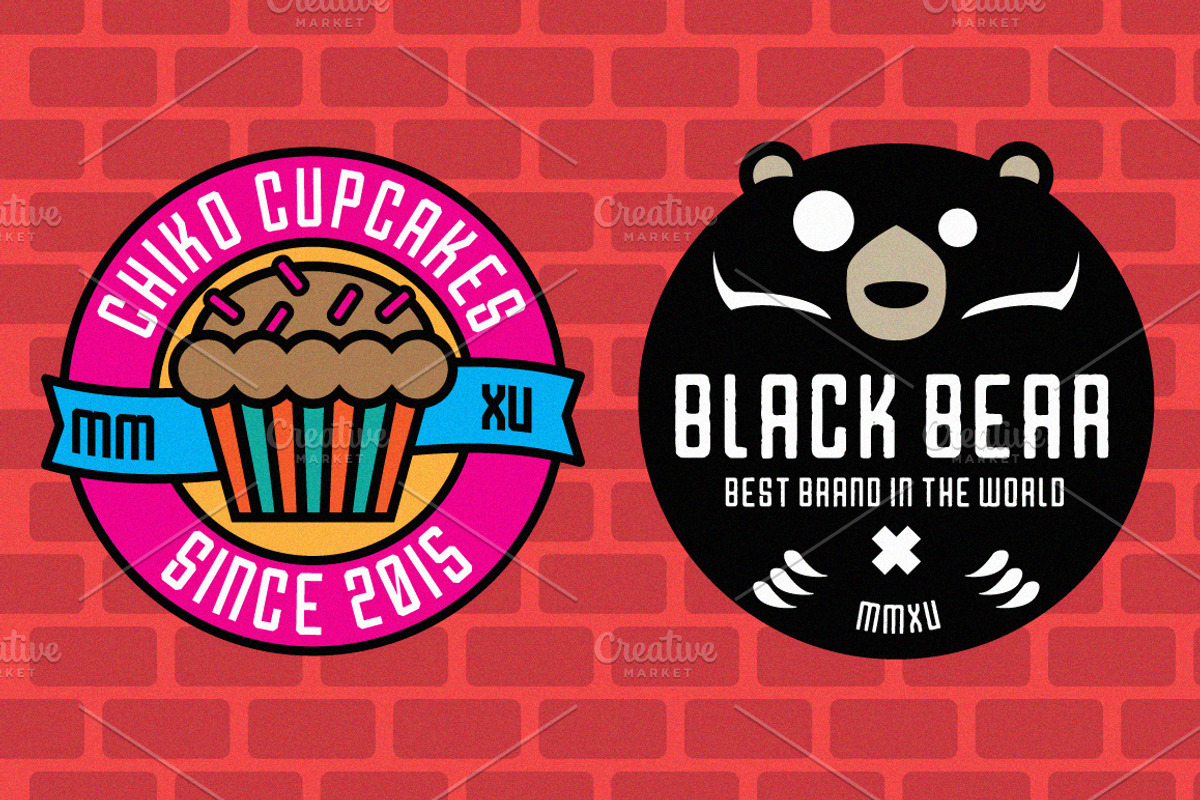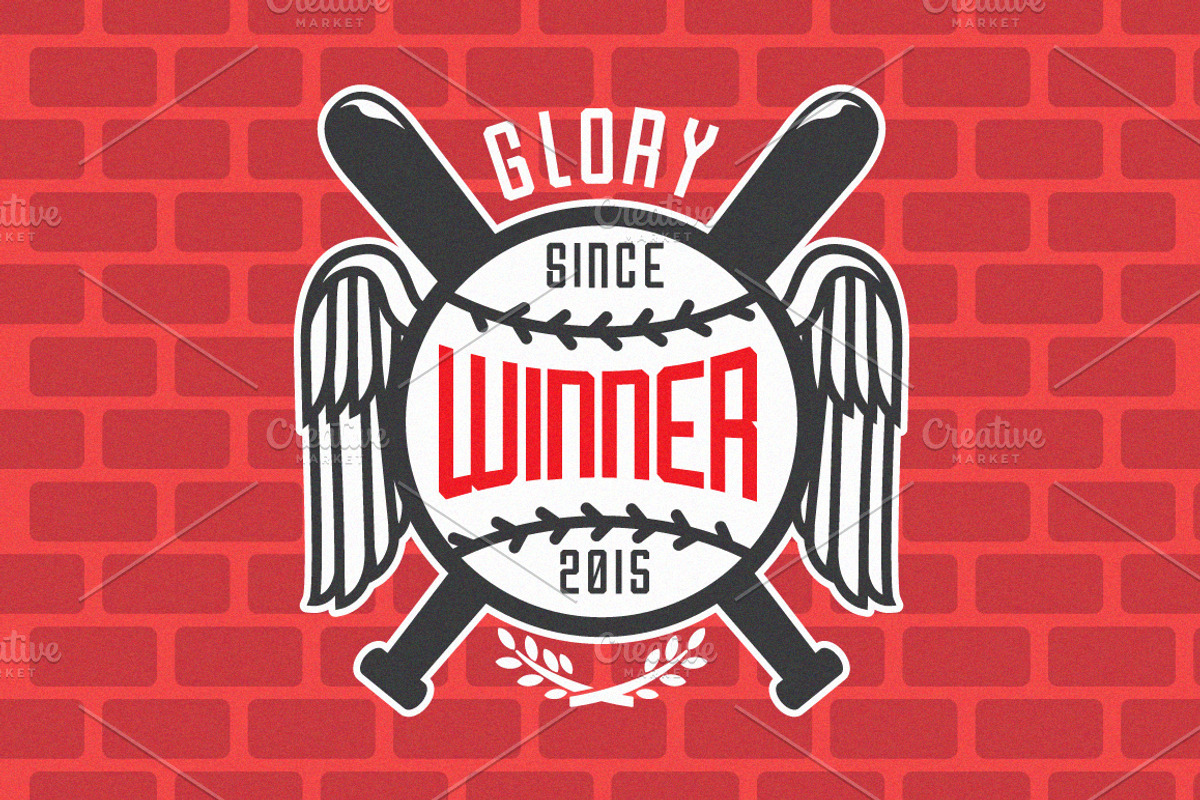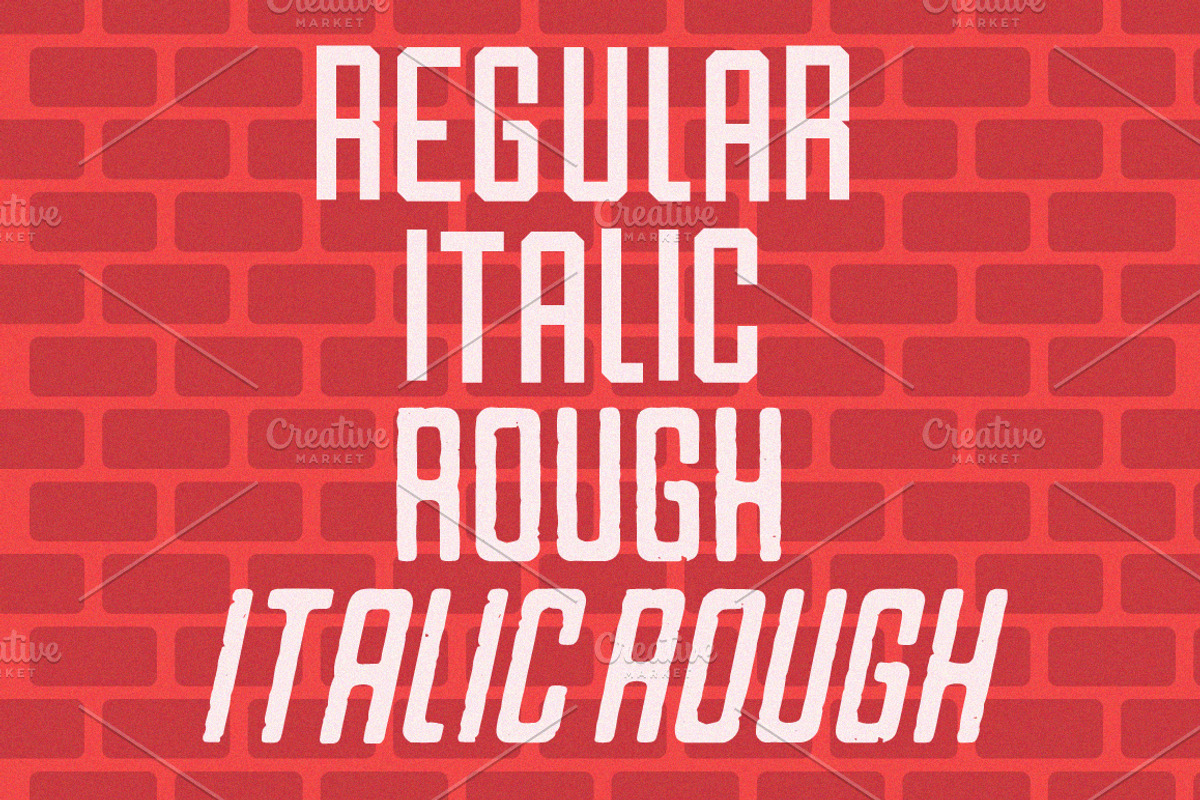
Sale ! 50% off Varsita Fonts + Bonus by fopifopi is a font selected for branding, posters, packaging, typography.
- Varsita Regular
- Varsita Italic
- Varsita Rough Regular
- Varsita Rough Italic
Sale ! 50% off Varsita Fonts + Bonus by fopifopi fits naturally into Branding, posters, packaging, typography.